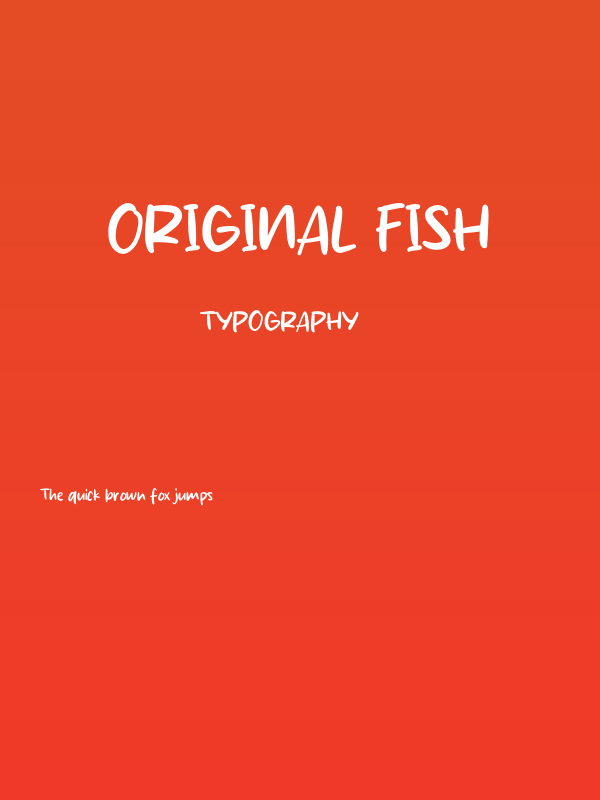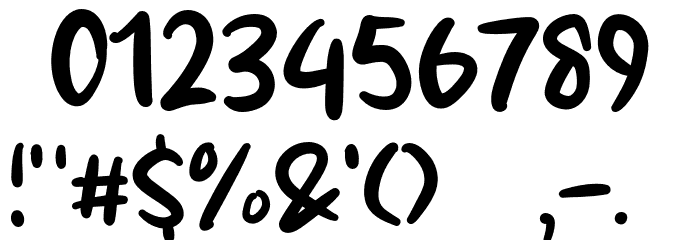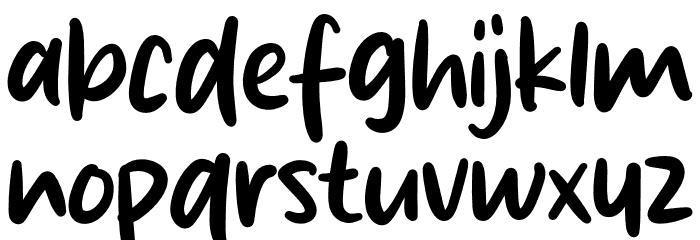
Original Fish Font
Original Fish Description
This font exhibits a playful and casual handwritten style, characterized by its smooth, flowing curves and slightly irregular strokes that mimic natural handwriting. The letters are bold and rounded, giving a friendly and approachable appearance. The uppercase and lowercase letters maintain a consistent style, with a slight slant that adds to the informal feel. The numerals and special characters are designed to match the overall aesthetic, ensuring a cohesive look across all text elements. This font is ideal for projects that require a personal touch, such as greeting cards, invitations, or creative branding materials.
| Overall Style | Casual, Playful |
| Use Case | Headlines, Logos, Informal text |
| Proposed Projects | Greeting cards, invitations, creative branding, casual posters, and social media graphics. |